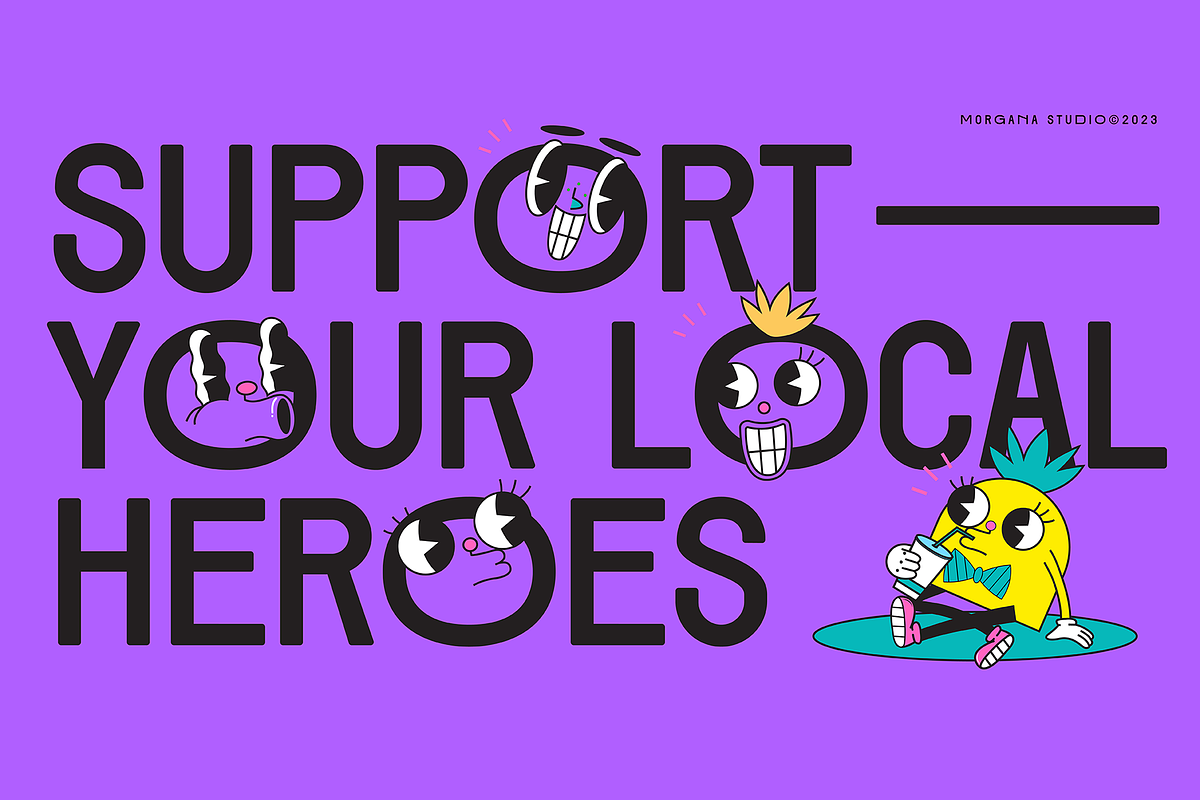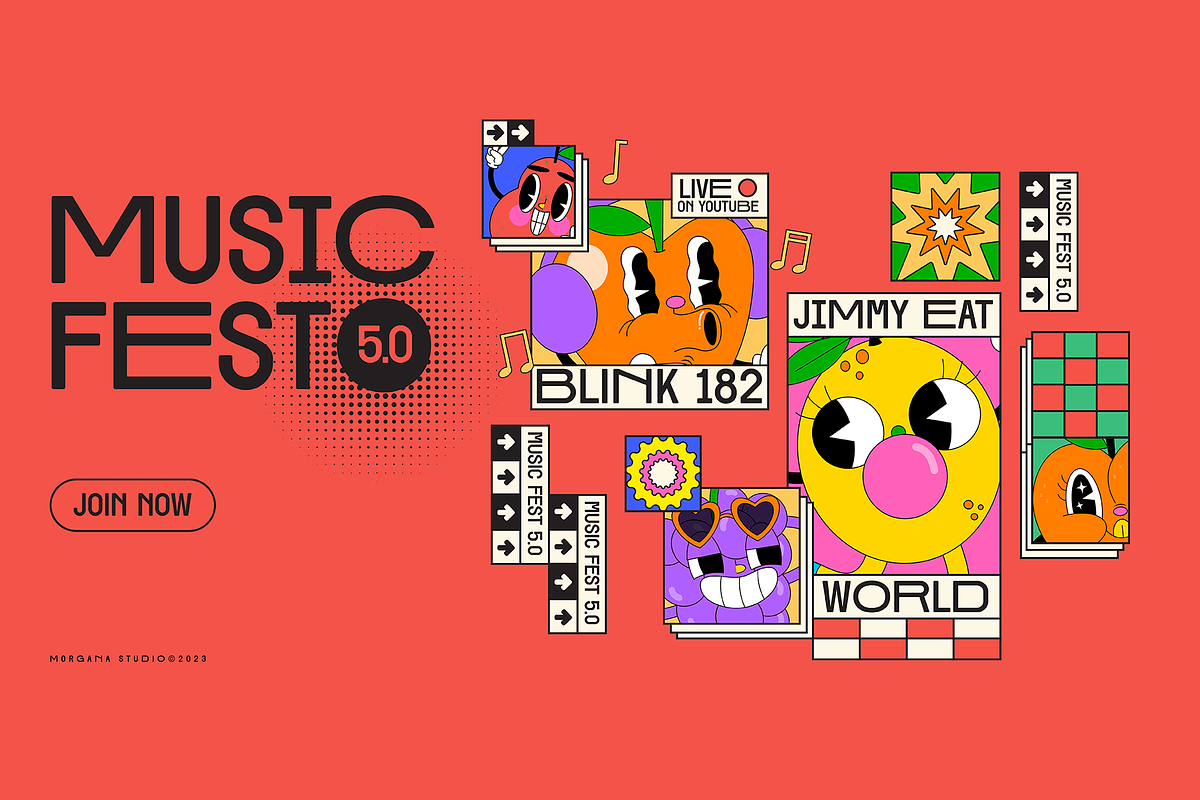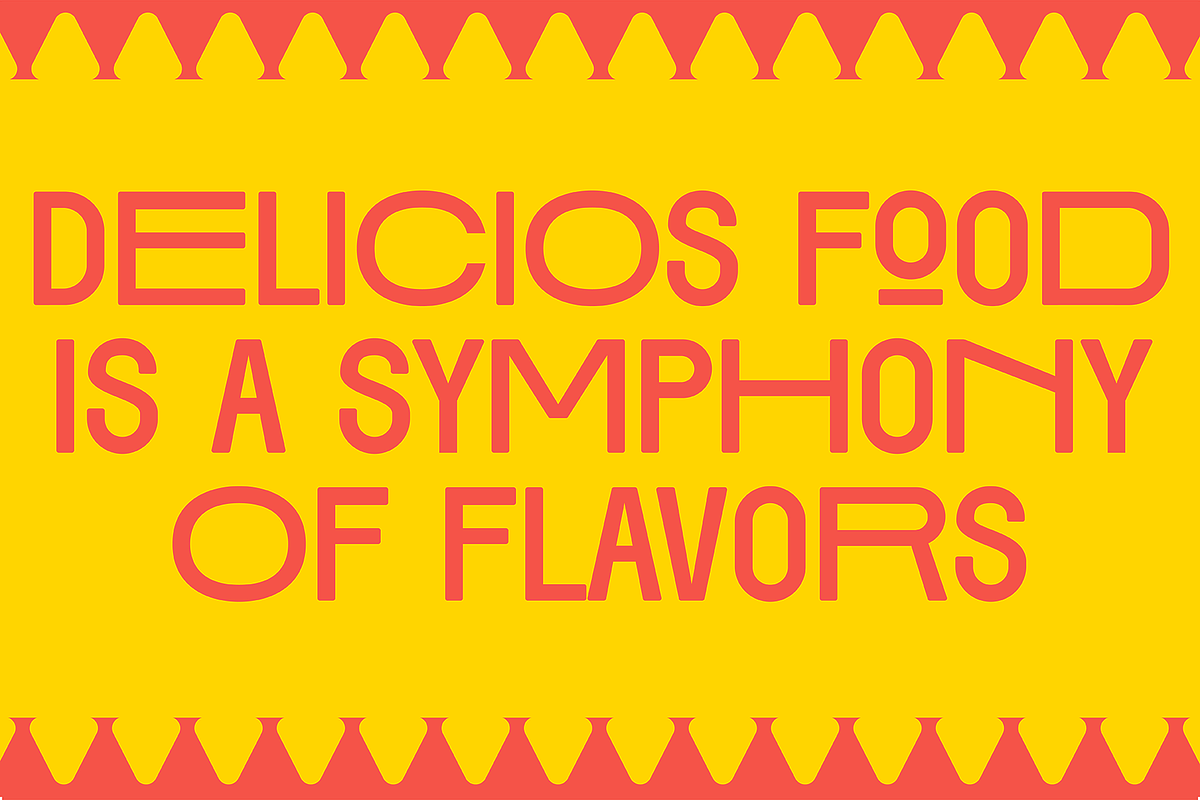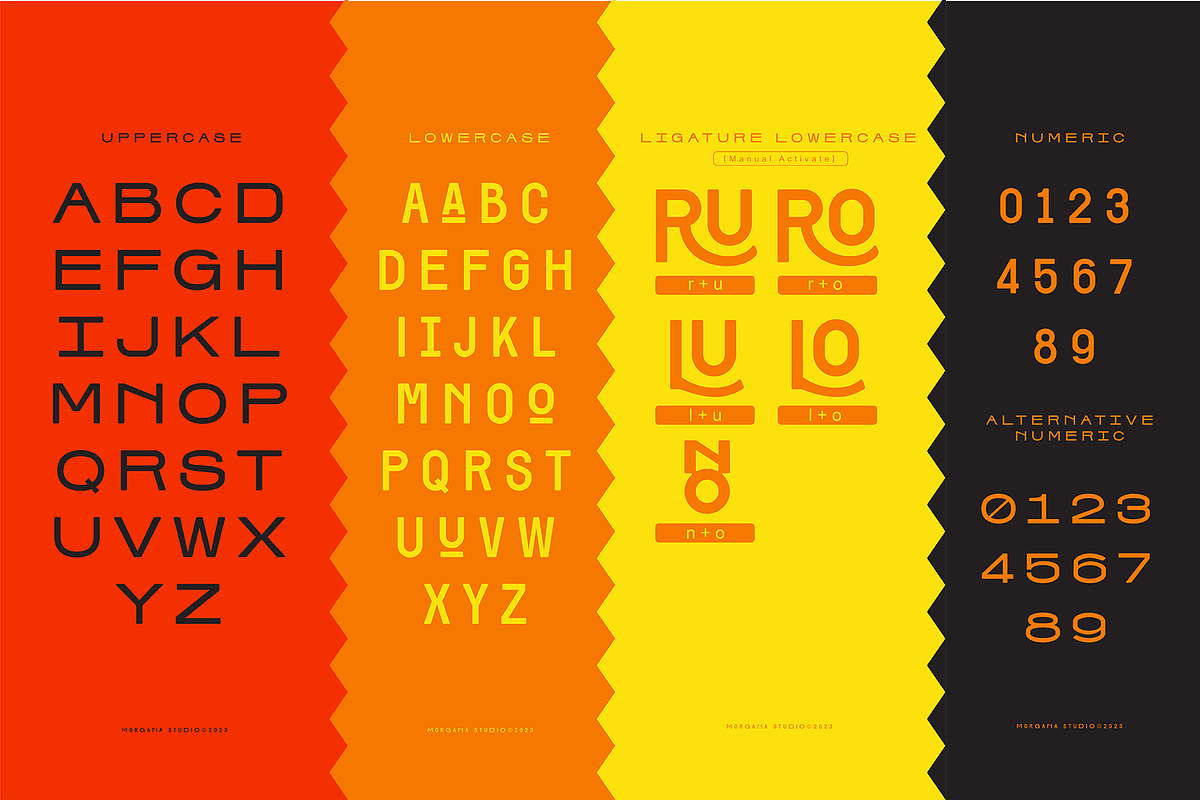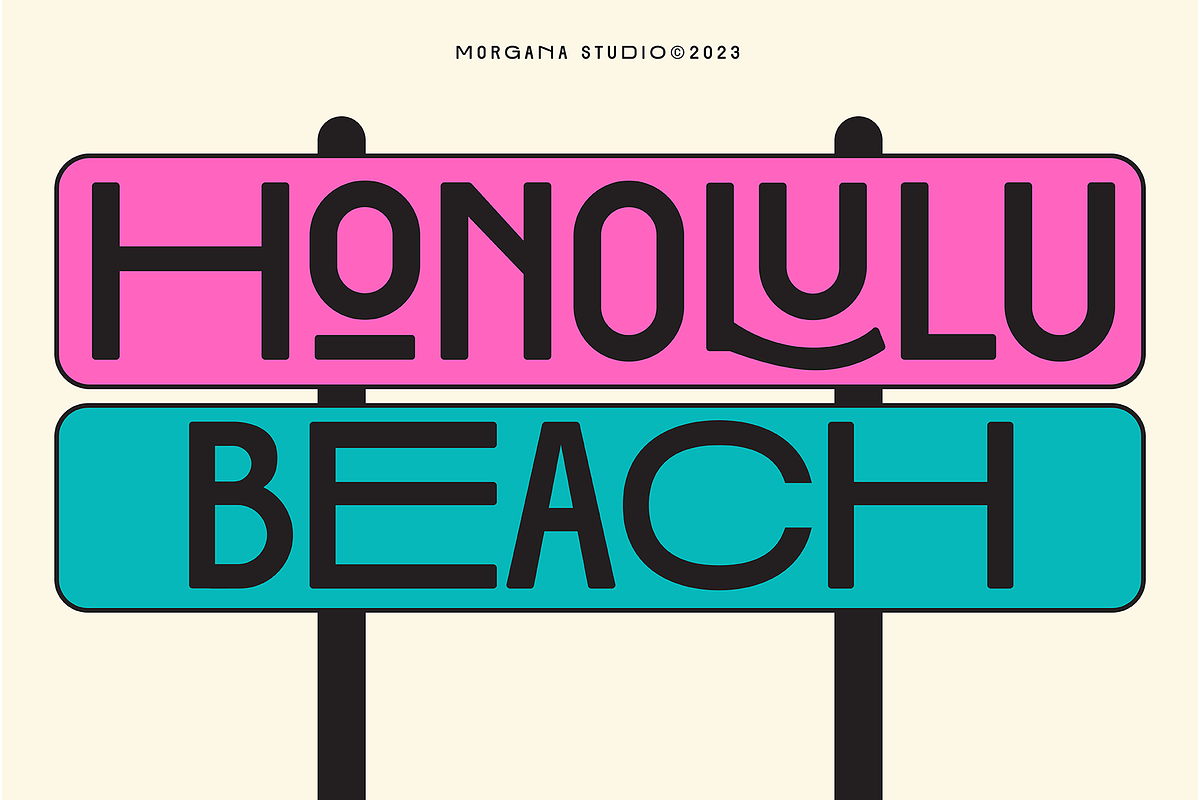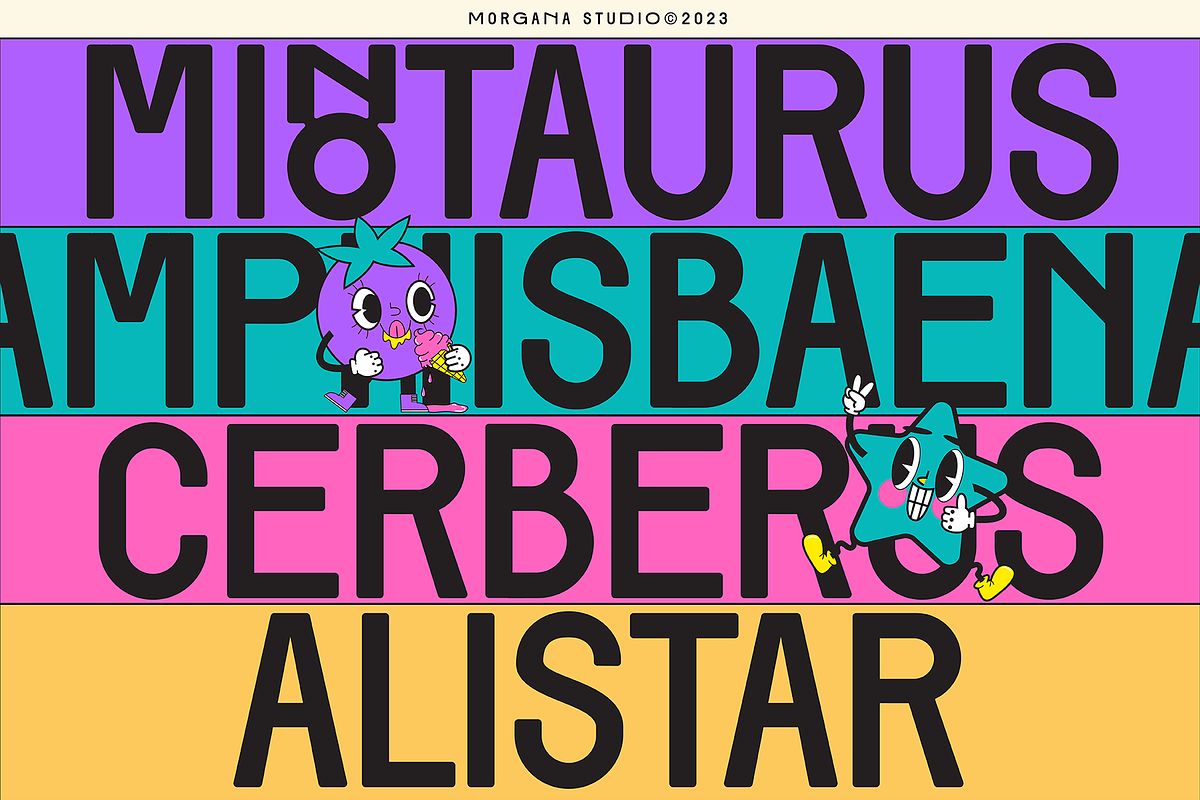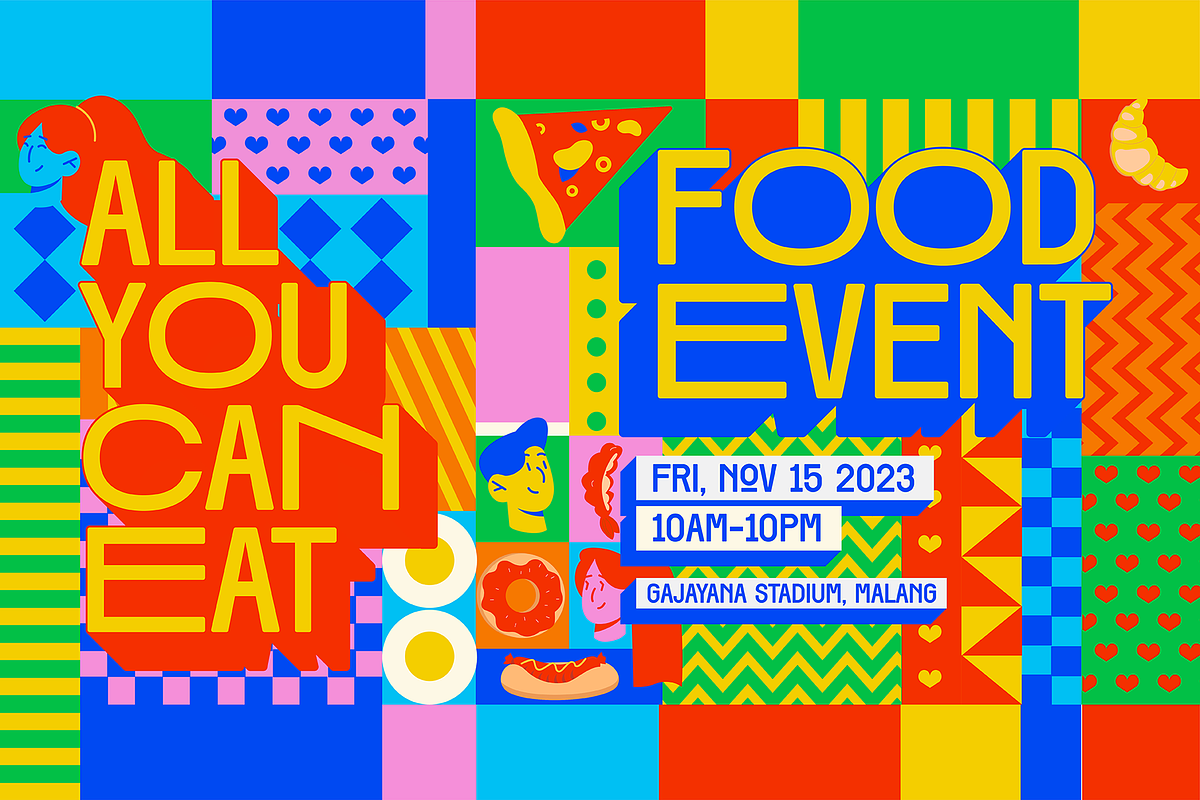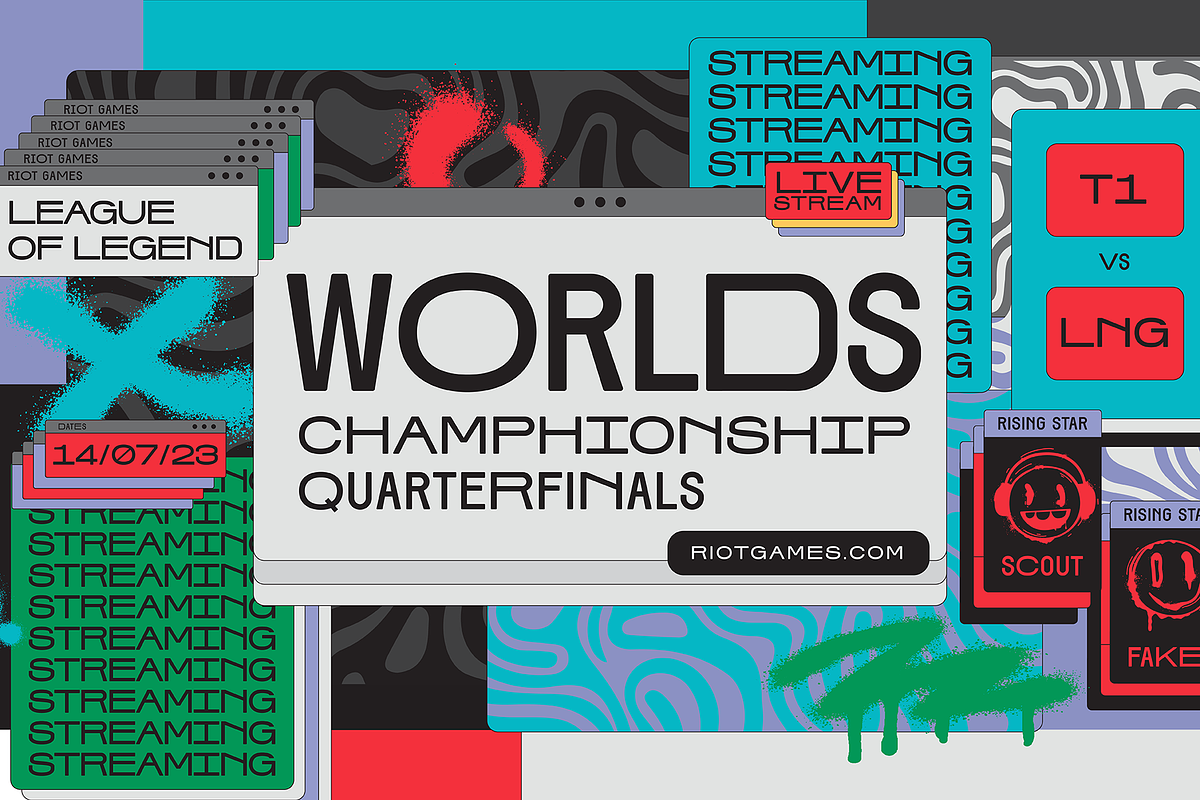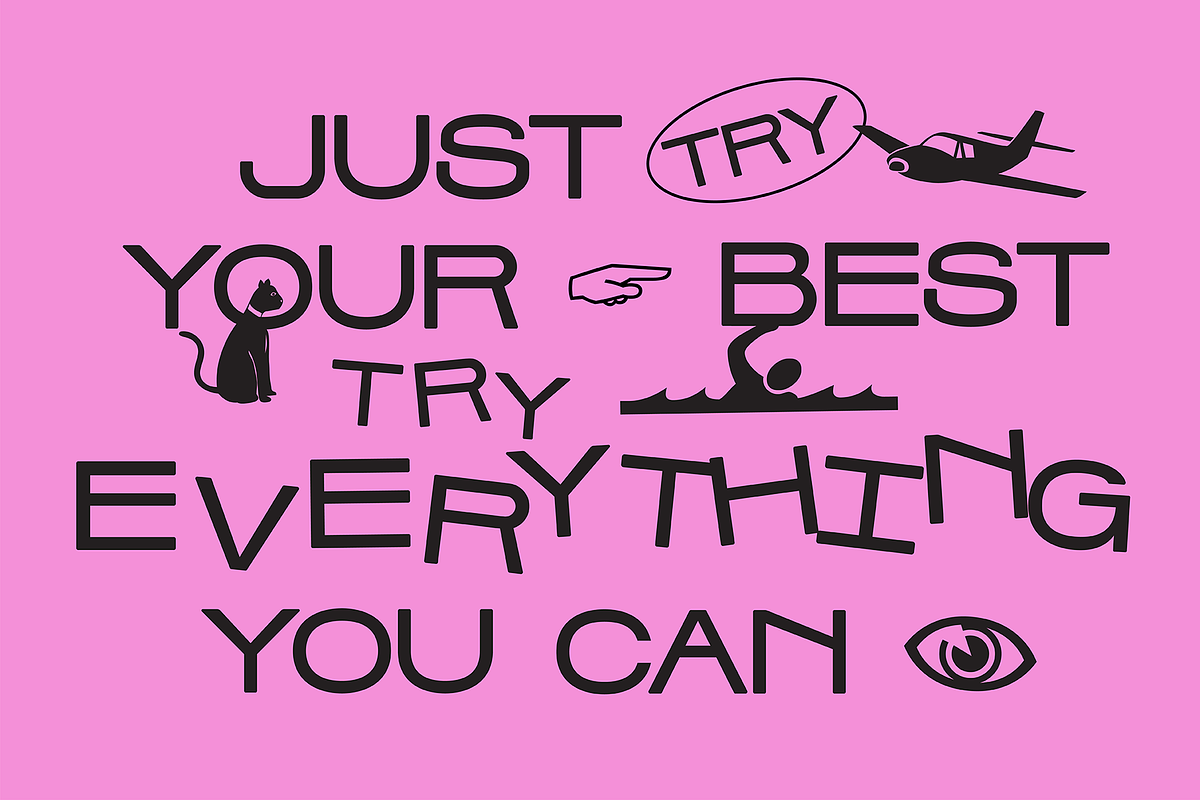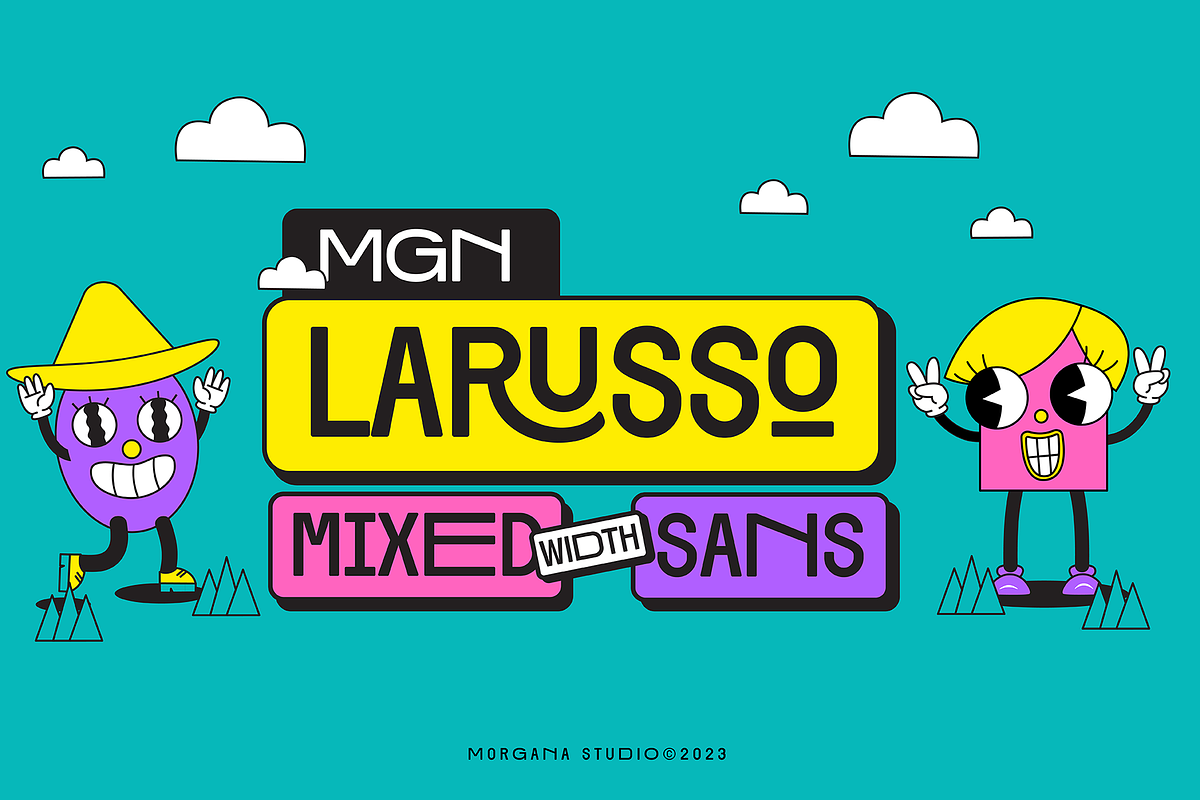
MGN Larusso Display
MGN Larusso: A mixed-width sans-serif font seamlessly blending modern aesthetics with classic elegance. Versatile and dynamic, its varying letterform widths create a unique visual rhythm for impactful design. Clean lines and sharp edges exude sophistication, making it suitable for diverse applications. Ensuring legibility across sizes, MGN Larusso is a reliable choice for graphic designers and creatives seeking a modern yet timeless font.